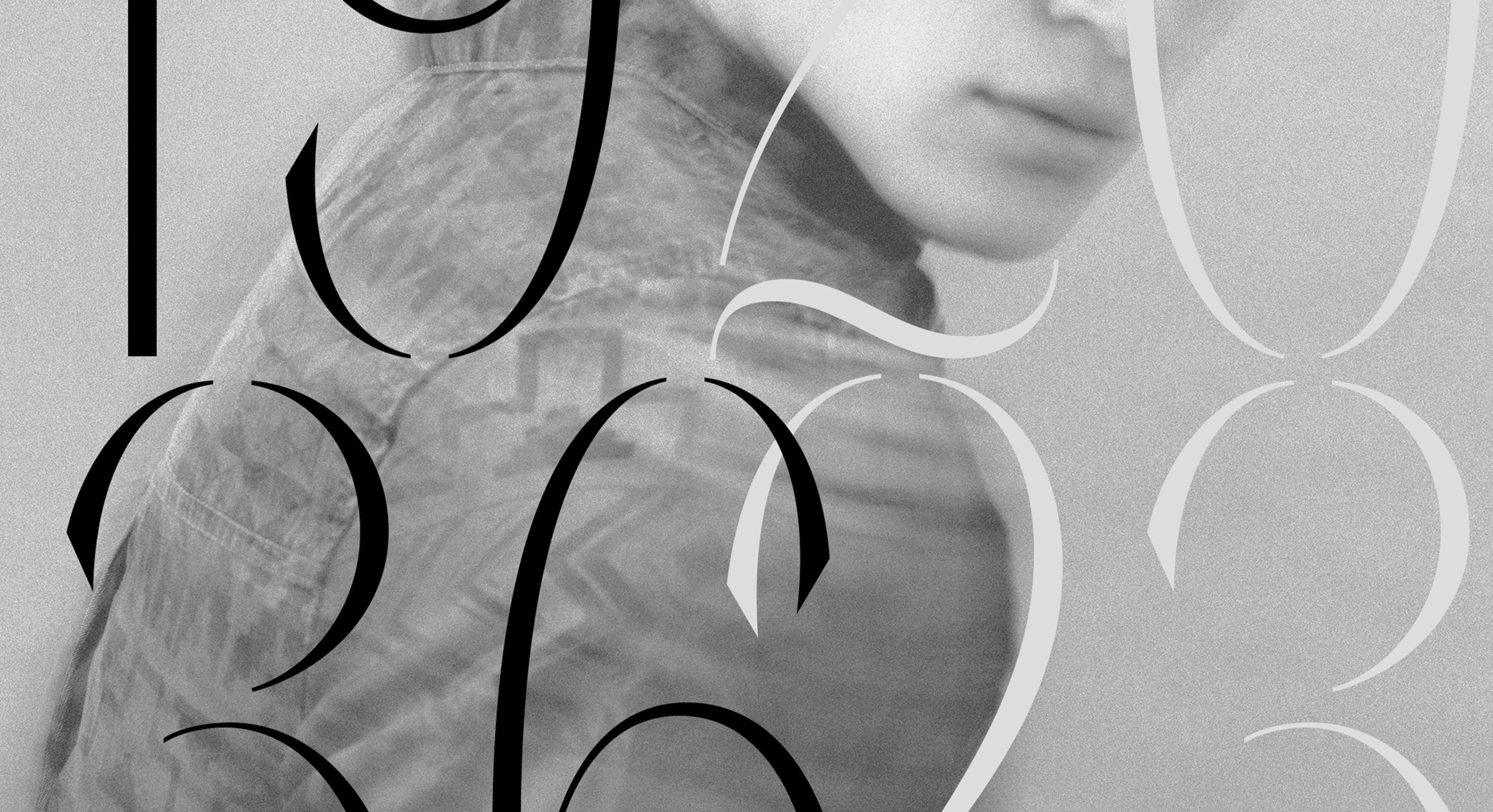
Négligé creates an air of mystery, existing and flourishing between the worlds of geometry and the decoratively eccentric.
Négligé
Some typefaces are (ridiculously) described by their users as “sexy”. But what does it really mean to create an erotic experience through type? Négligé creates an air of mystery, existing and flourishing between the worlds of geometry and the decoratively eccentric.
Sophisticated, subtle and stylish, Négligé challenges the fluidity of a typeface’s skeleton structure, flexibly shifting between plunging curves, elegant ligatures and razor-sharp cuts. The result is not only a striking typeface, but an innate elegance offering swash capitals and curly alternatives alongside a host of fun features. As such, the charming letterforms, available in their regular and stencil style or an "unveiling" variable font, leave the rest to your imagination.